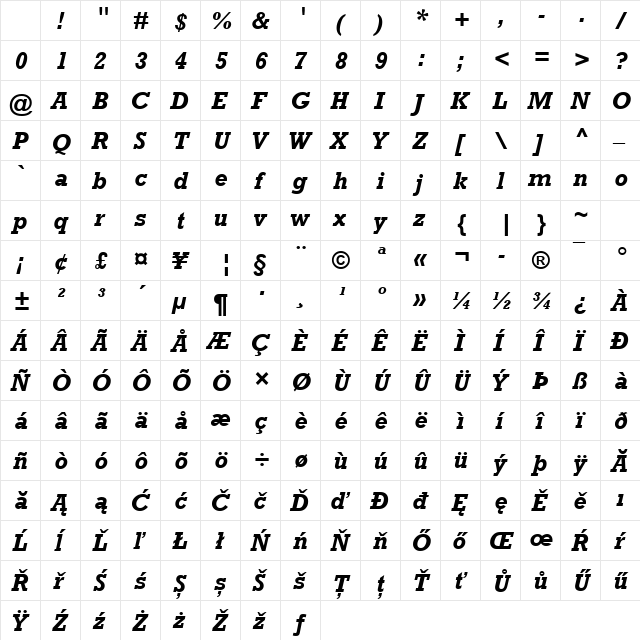
Complete Rockwell Bold Italic glyph index. Displaying only characters natively supported by Rockwell Bold Italic font.
Rockwell is a composed and adaptable typeface that performs quietly and consistently across a wide range of design contexts. The slanted form adds forward momentum and visual energy. Its bold stroke weight gives it real presence on the page.
Pro Tip: Use Rockwell for emphasis, pull quotes, and subheadings where its slanted energy can add rhythm to the layout.